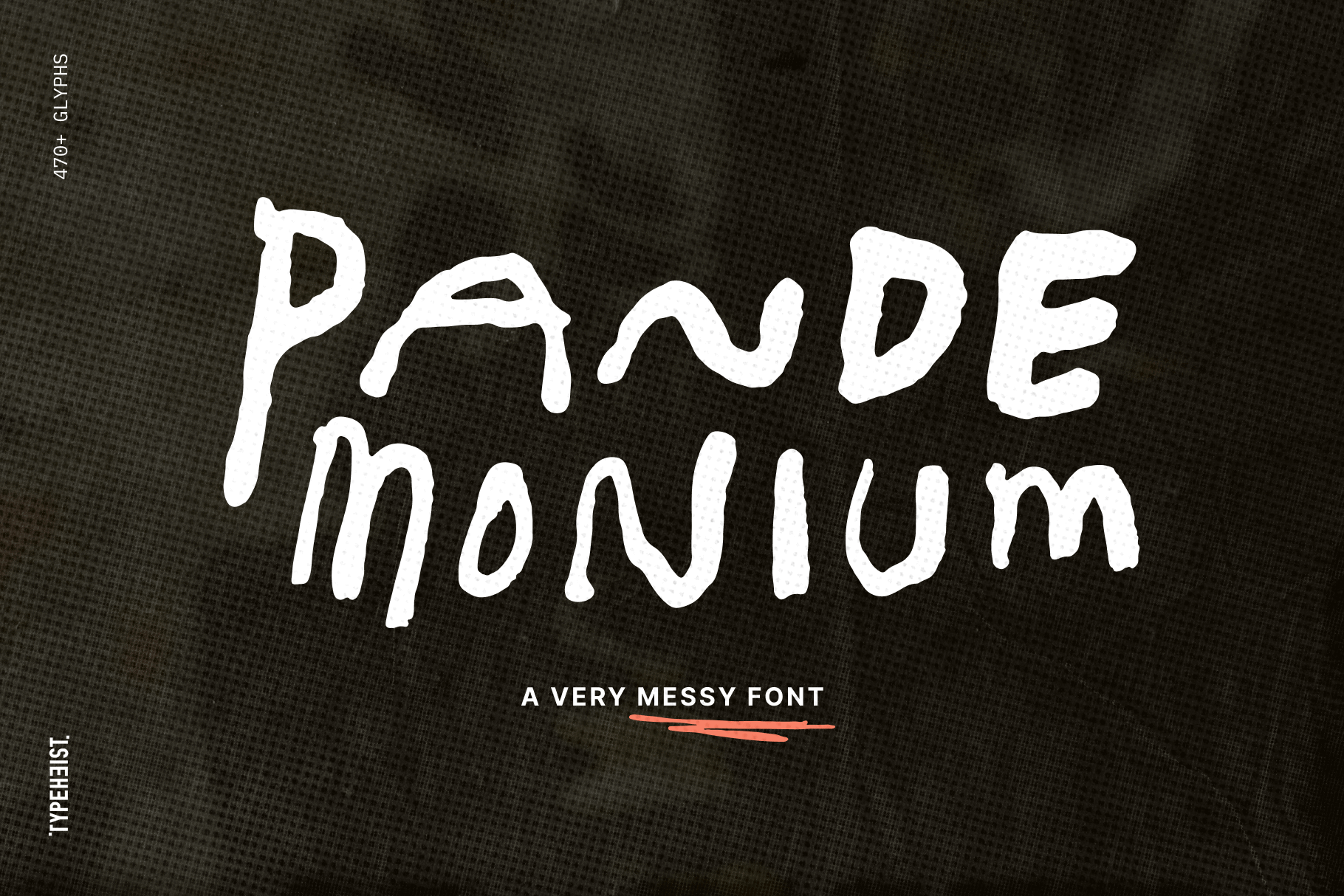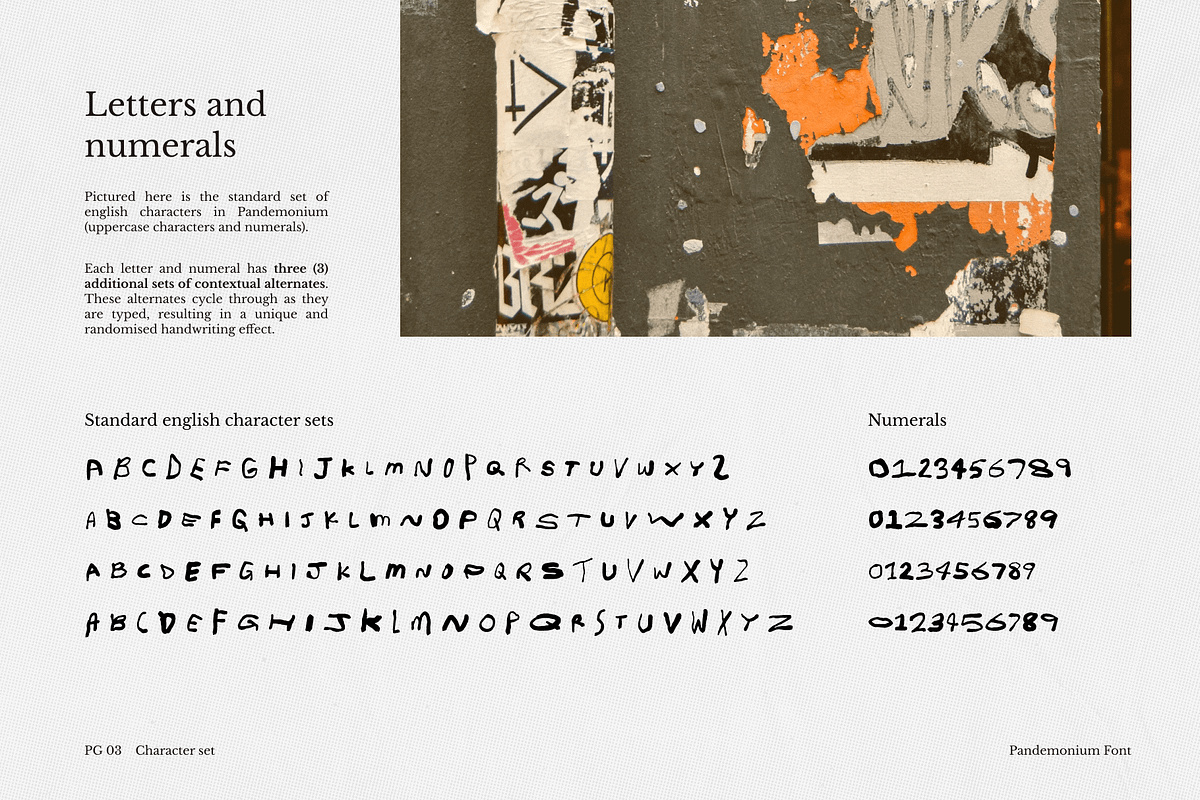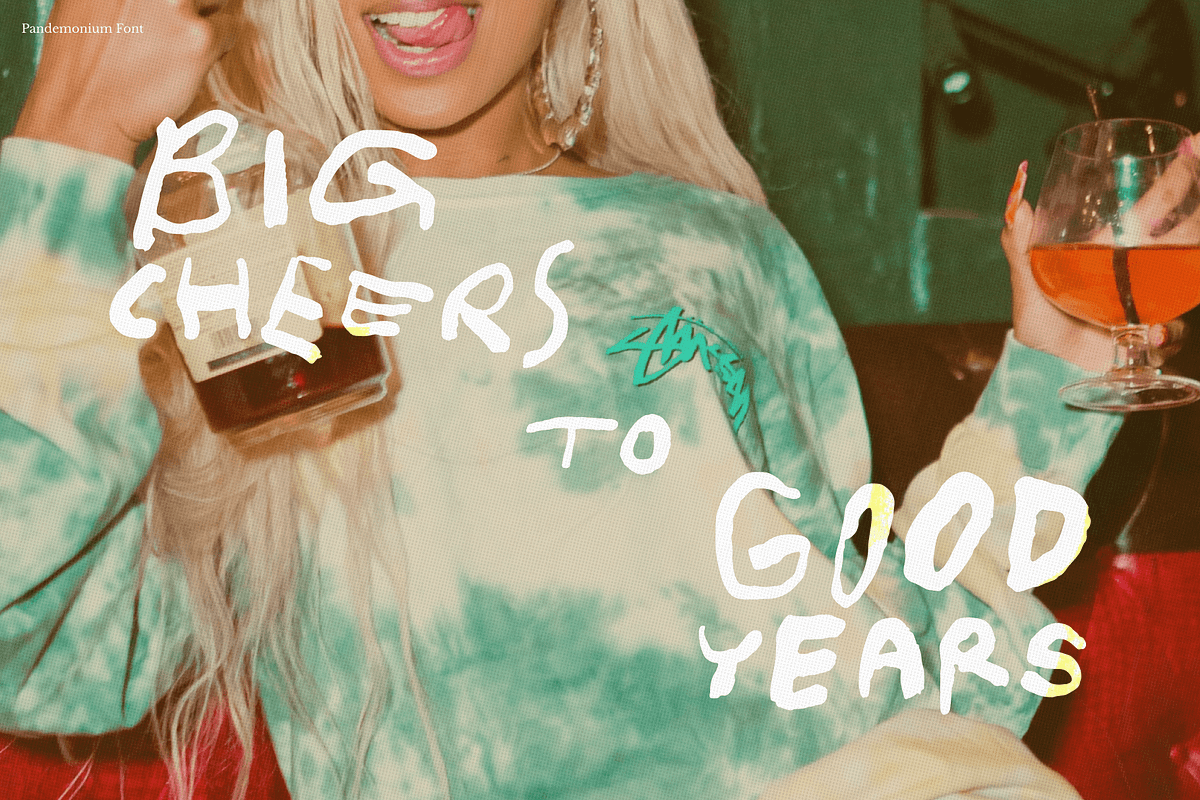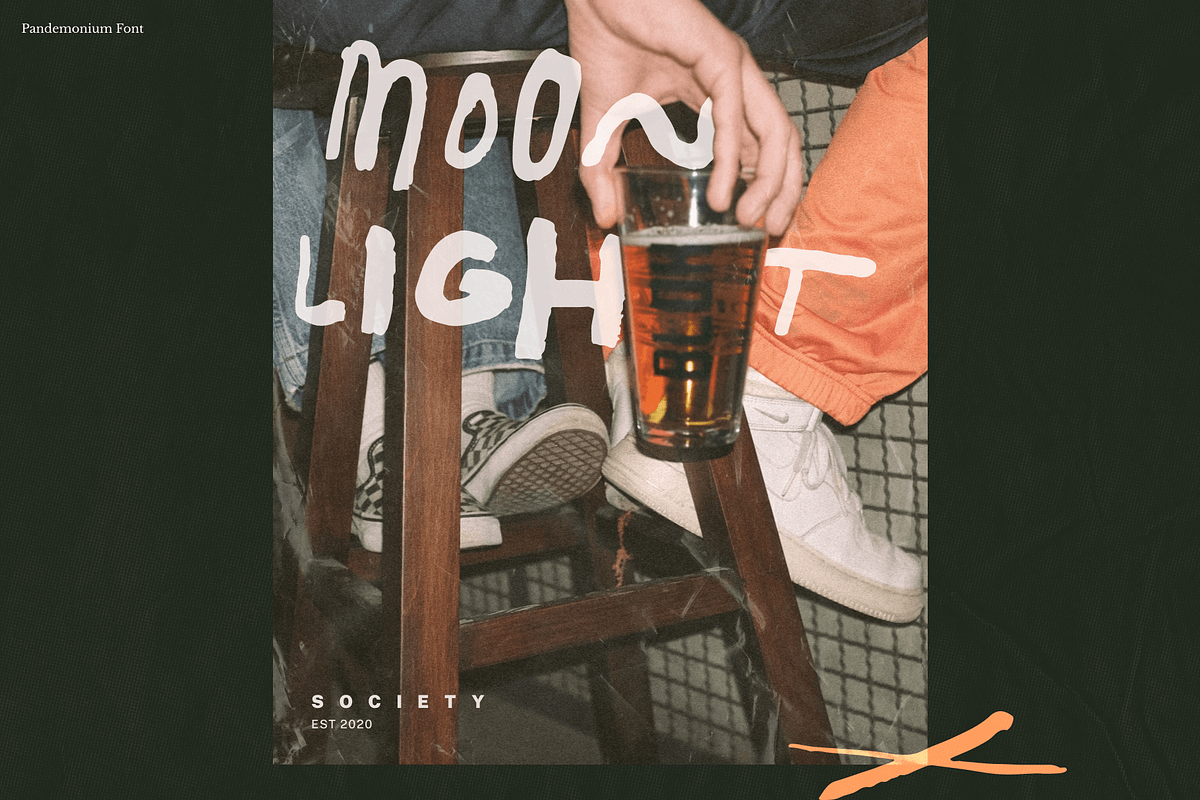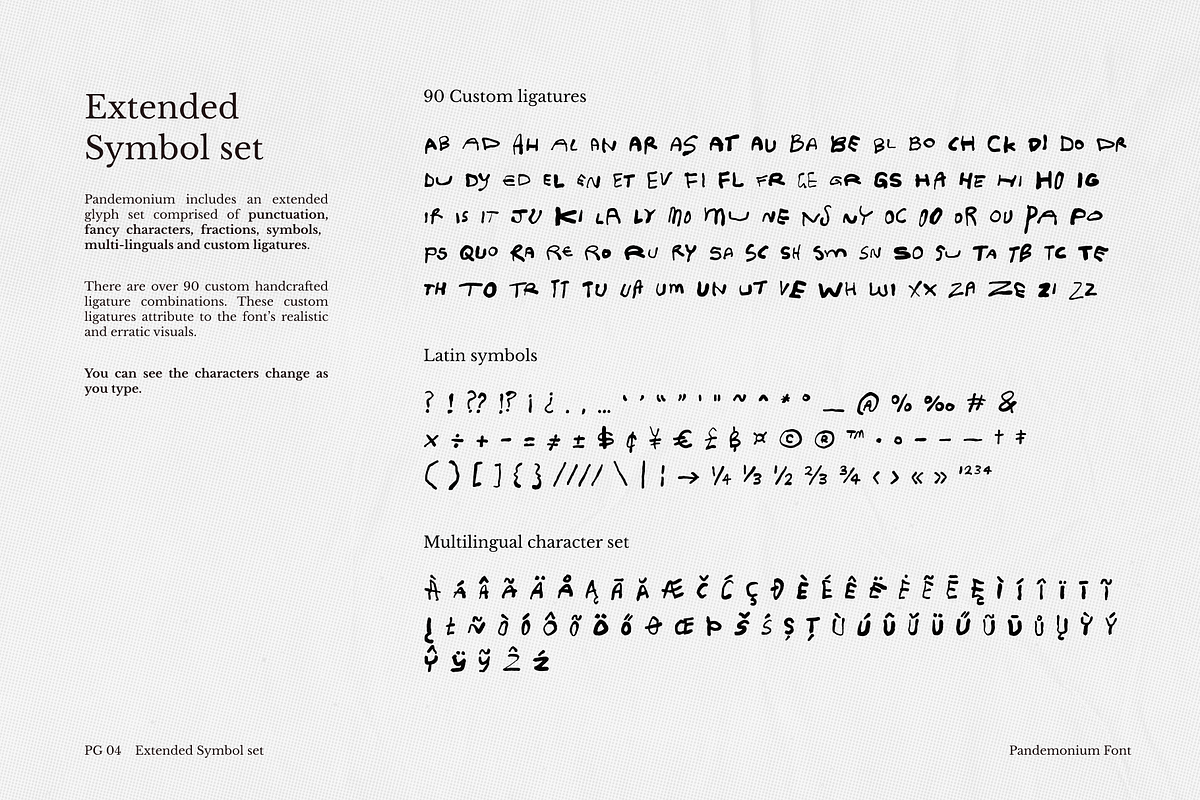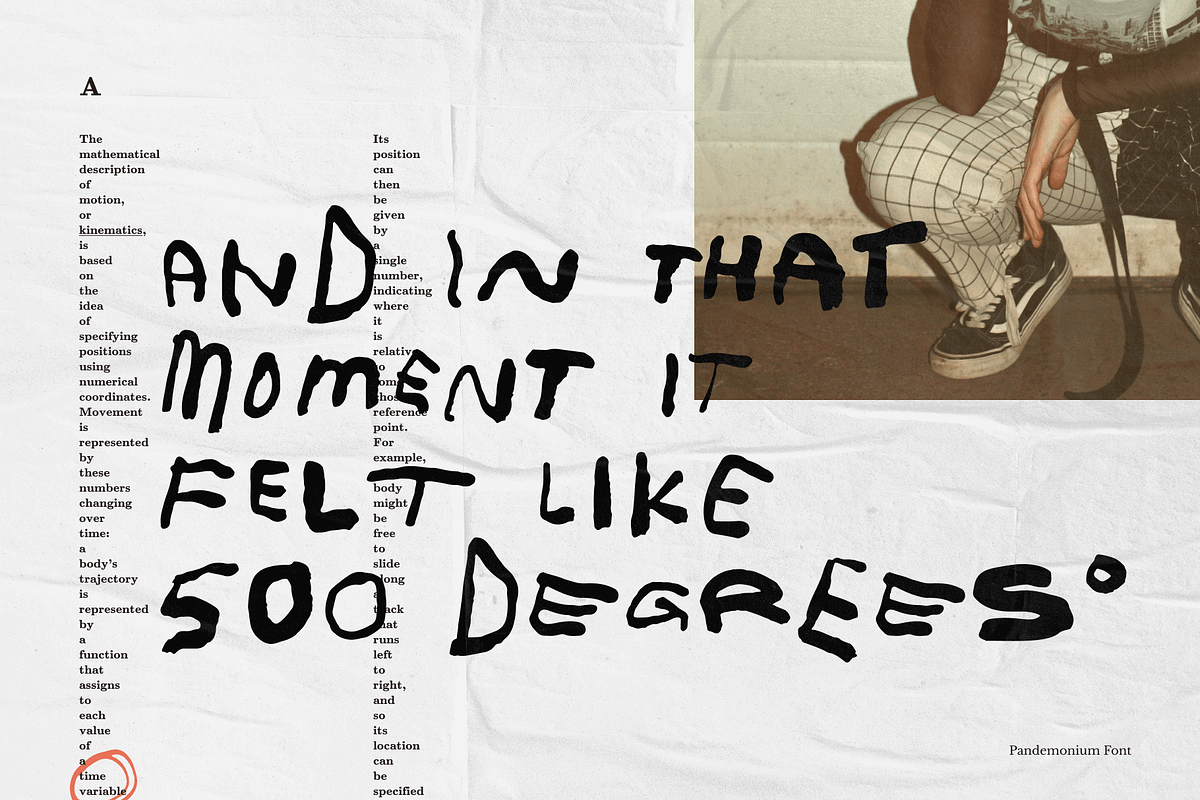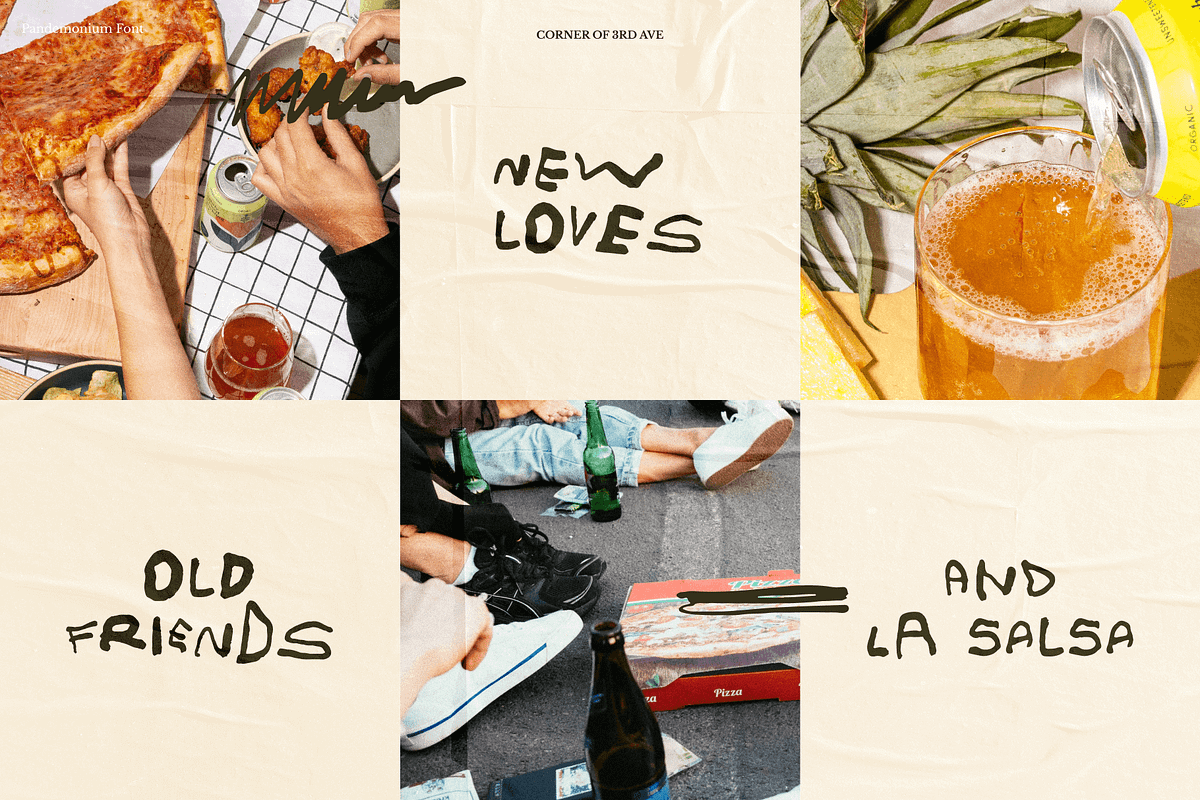
Pandemonium Messy Handwriting Font
"Wild uproar, unrestrained disorder; tumult or chaos". True to its name, Pandemonium font is exactly that: wild, chaotic and super erratic.
This messy handwriting font doesn't follow any rules. It's skinny, it's wide, it's bold, it's scratchy, it's jagged and unpredictable. And yet somehow, amongst it's disorder, each letter harmonises with the next one.
Pandemonium has multilingual characters, four equally wild sets of A-Z and 0-9 characters, as well as an extended set of Latin characters.
Additionally, this font has its own set of 78 scribble glyphs which are accessible via keyboard shortcuts.
- Pandemonium Regular
- 3 additional sets of contextual alternates for A-Z and 0-9
- 475 glyphs, 90 custom ligatures
- Standard english characters
- Multi-lingual accented characters (try in the tester!)